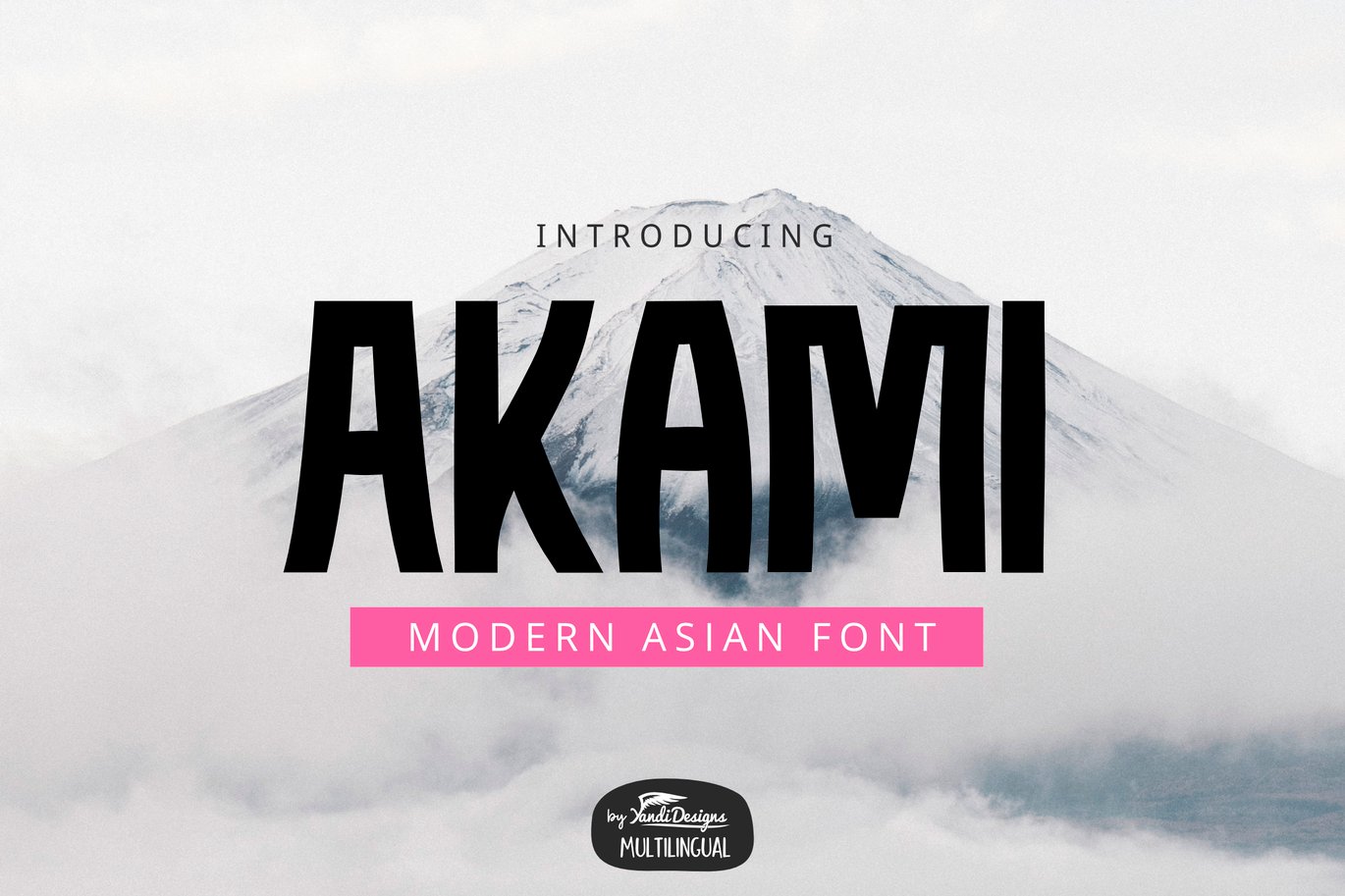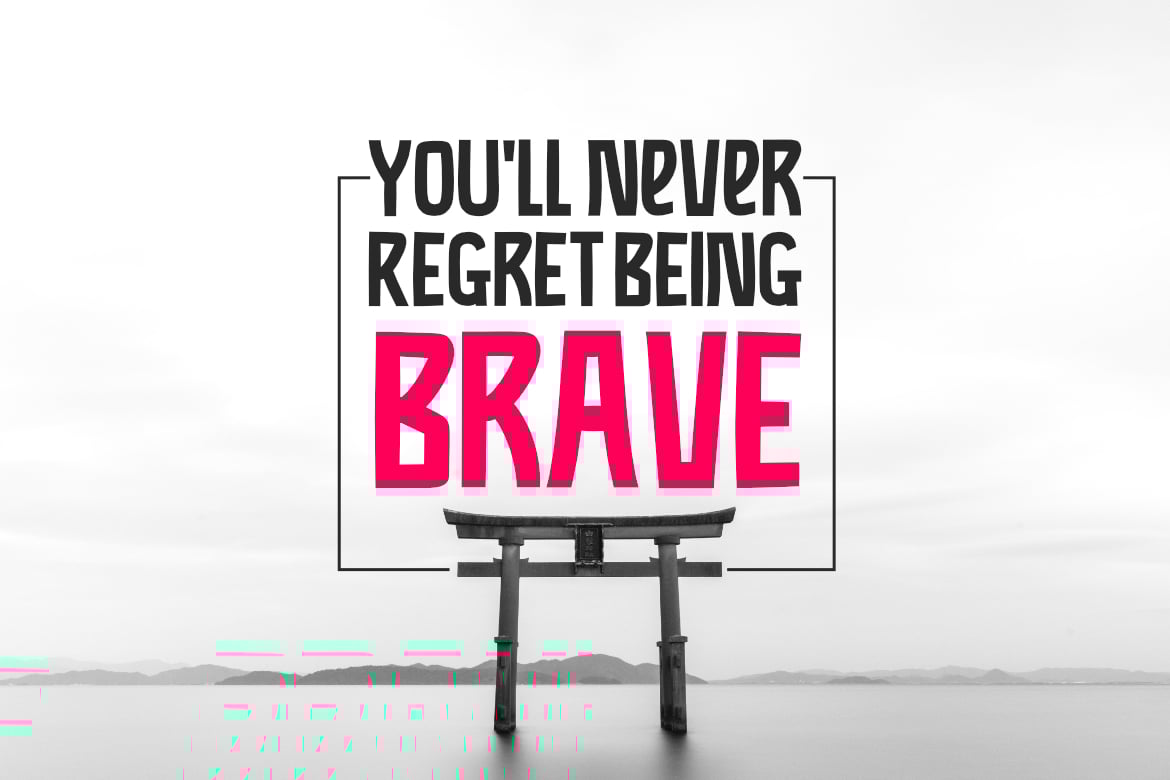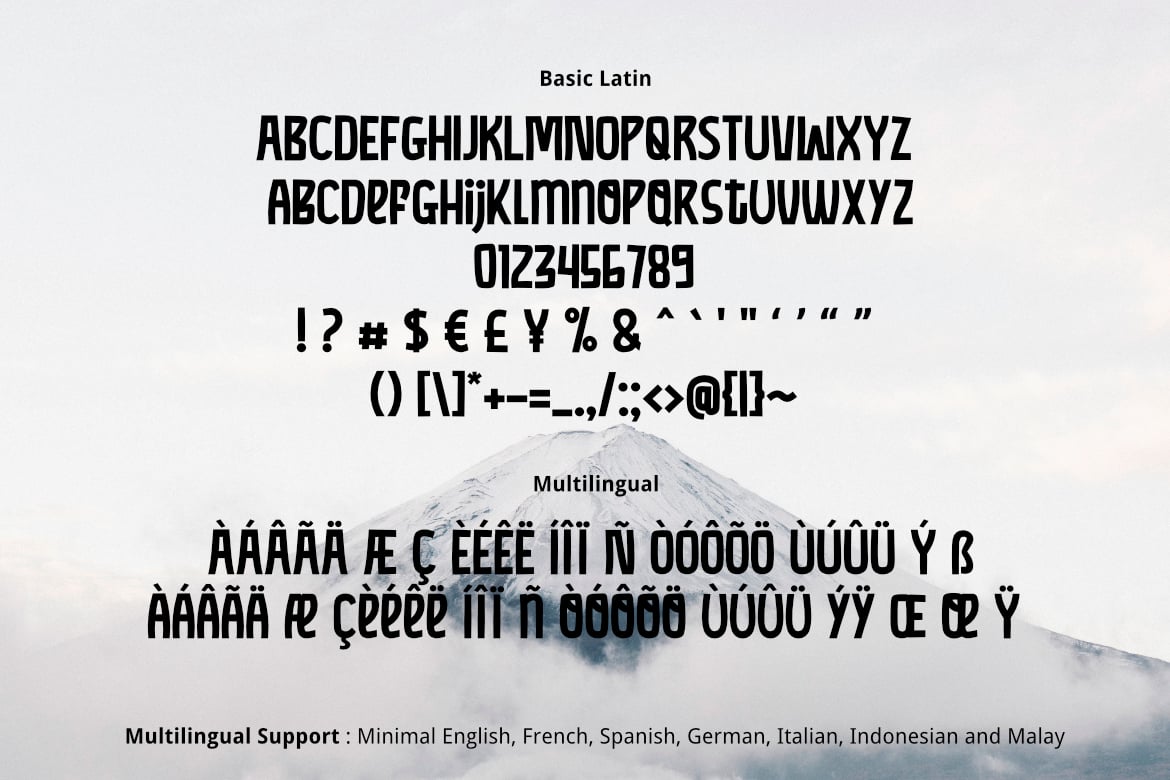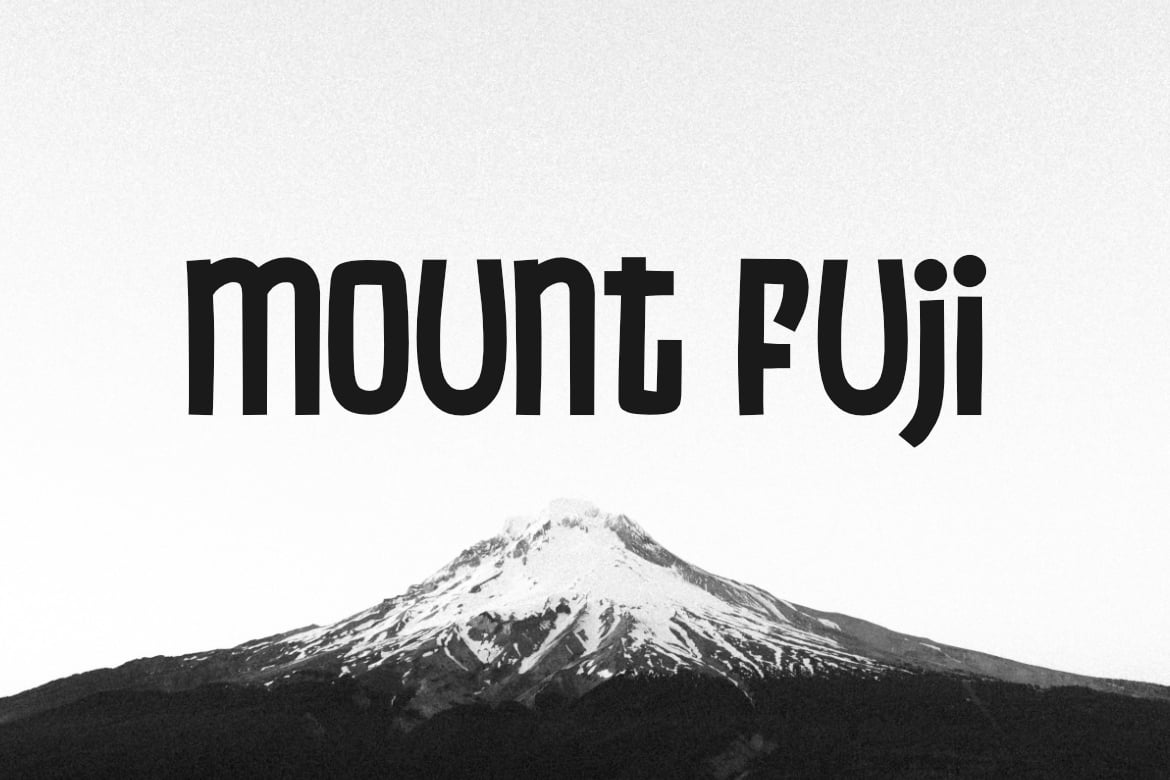
Akami Font
Akami is simple modern Asian multipurpose font, suitable for many project children book, quotes, logo , heading , title etc.
Basic Latin (Standard English character , number, symbol)
Multilingual Support (minimal English, French, Spanish, German, Italian, Indonesian, Malay)